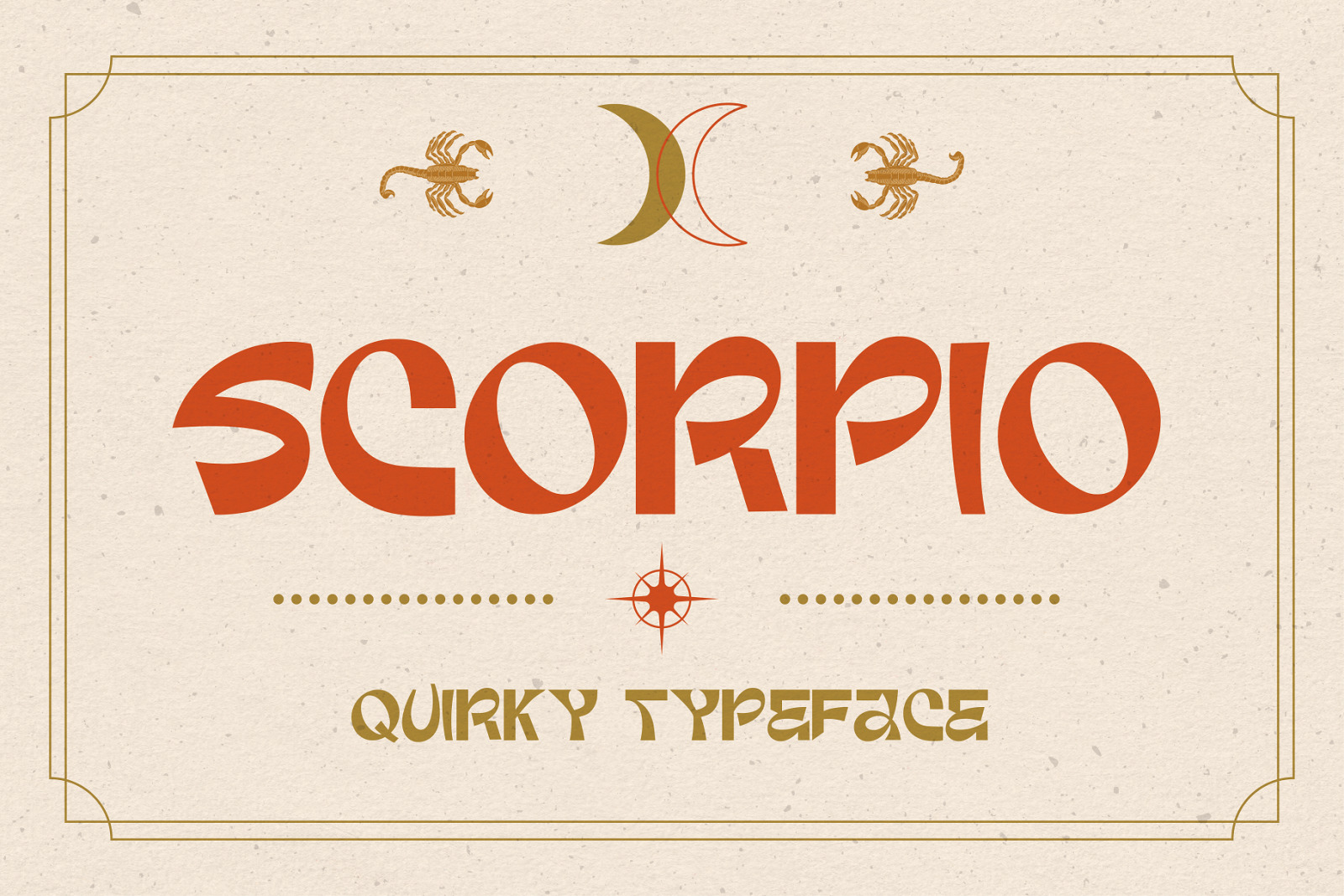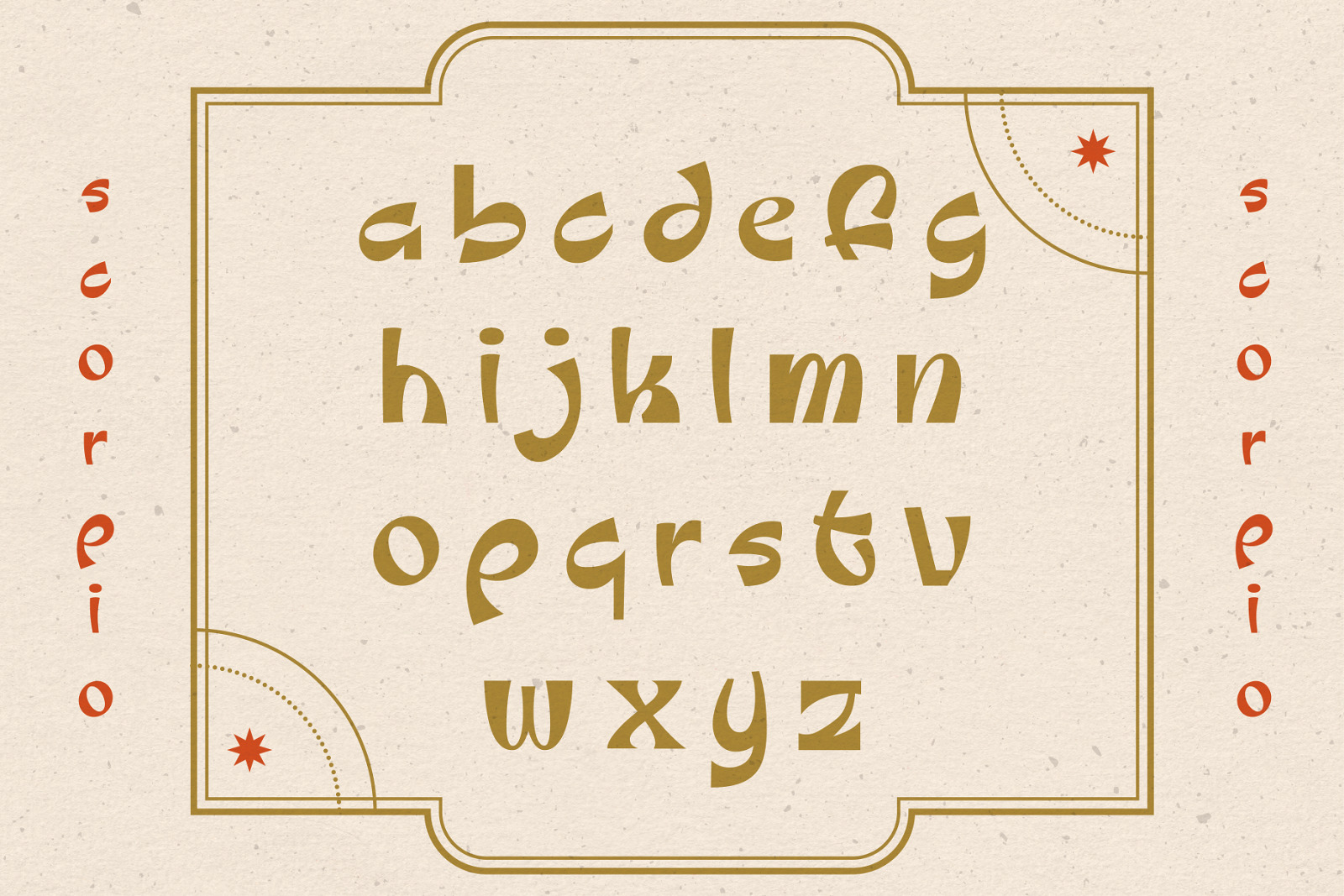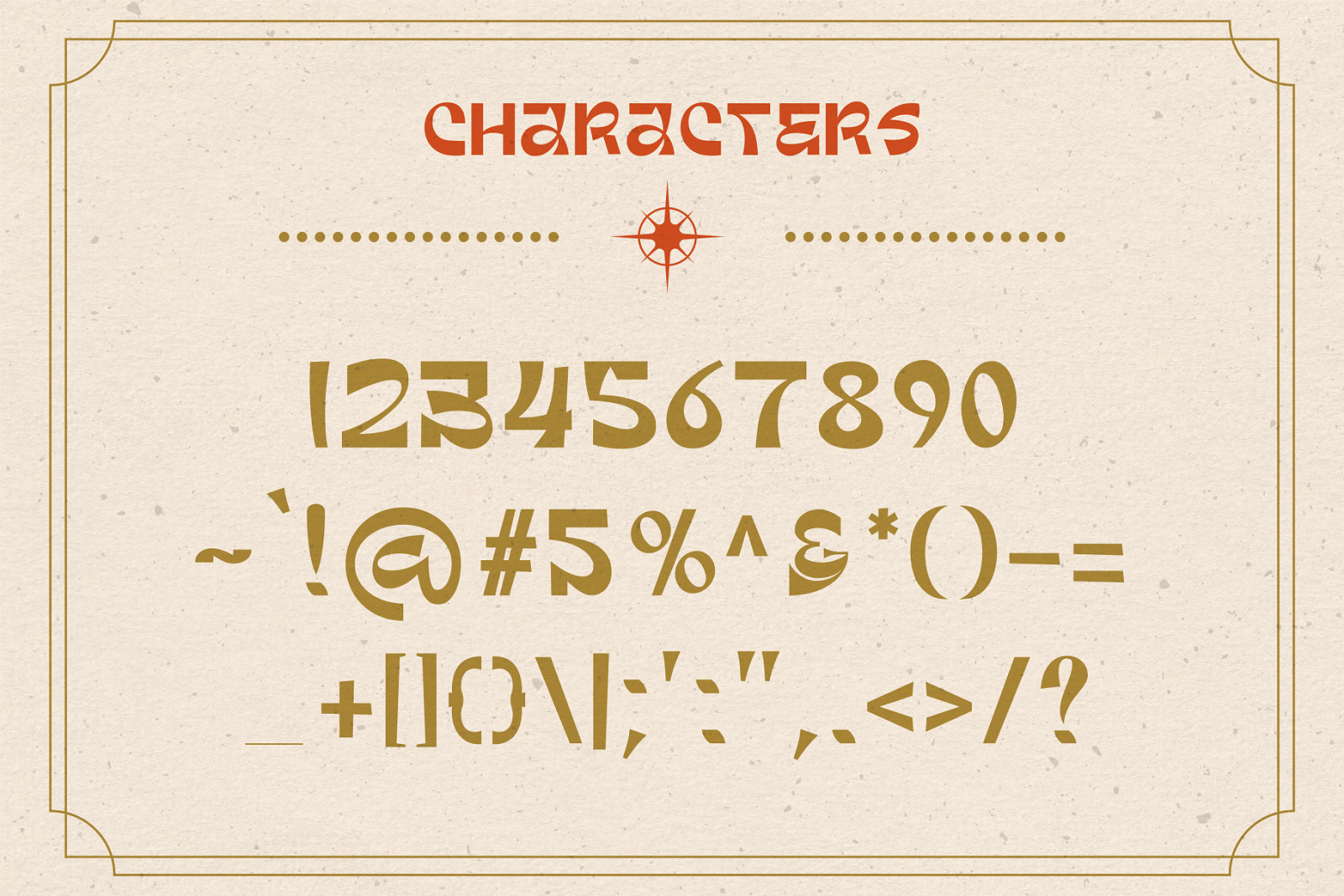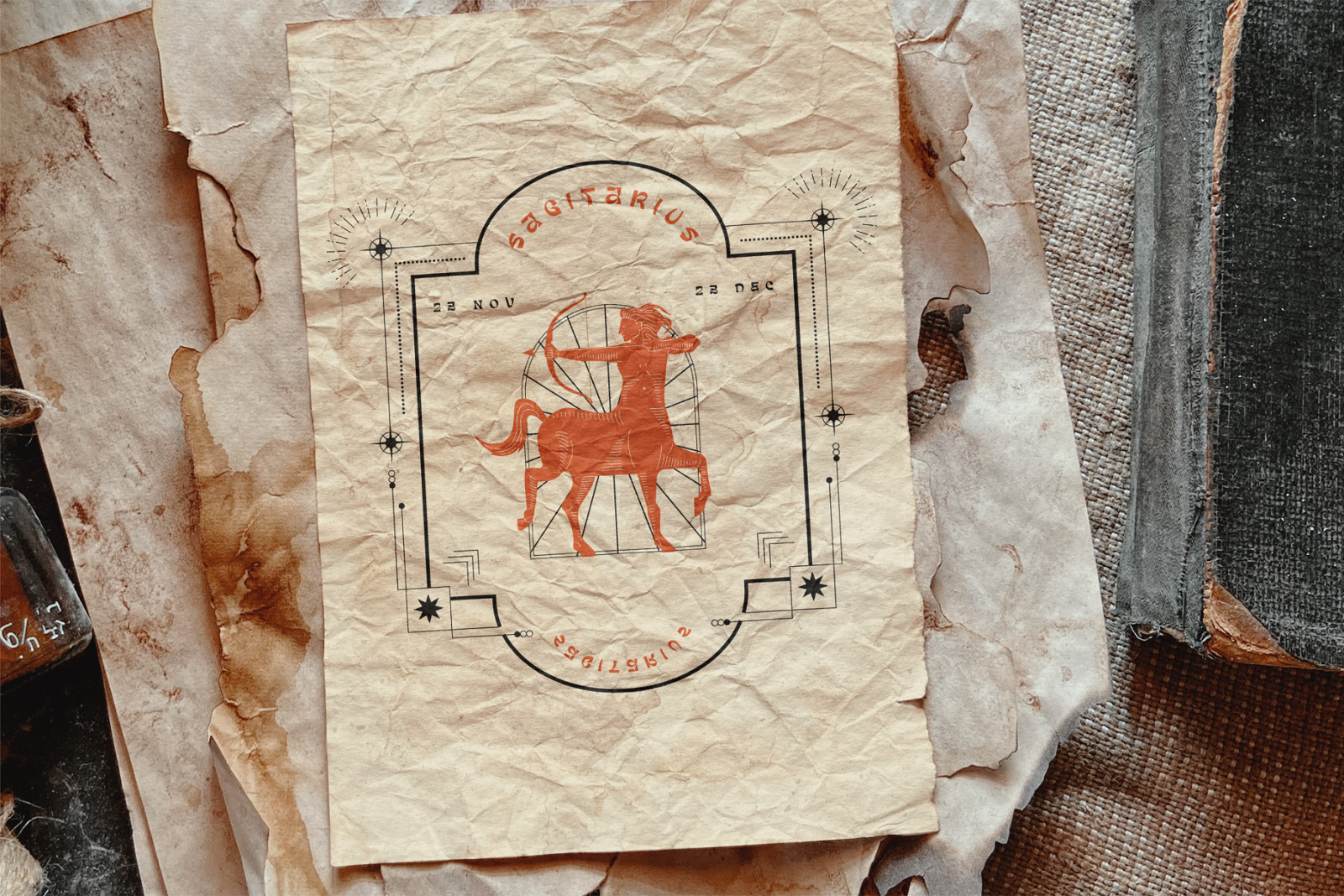
Scorpio - Quirky Astrology Typeface
Scorpio is a quirky typeface inspired by astrology. Thanks to its unique shapes and curves, Scorpio is truly a distinctive typeface. It is memorable, legible, and beautiful. You can use it for a vast variety of design projects such as branding, web design, headlines, book covers, advertising, packaging, stationary, and much more. If you're looking for a peculiar typeface, then Scorpio should be on your radar.